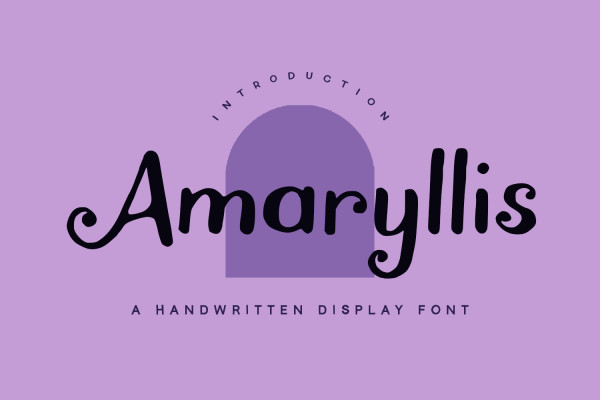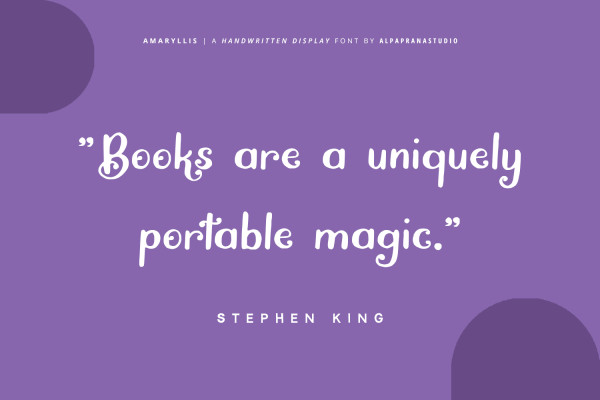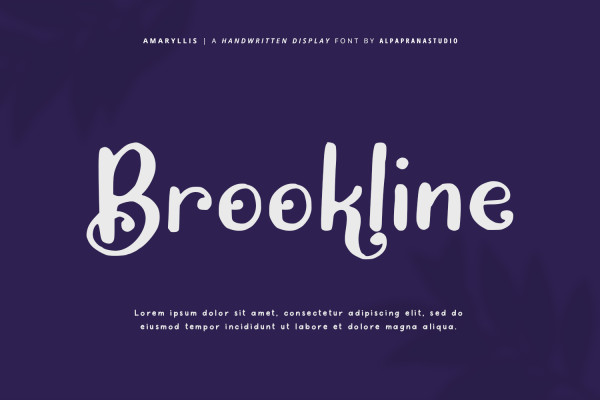
Amaryllis – Handwritten Font
Amaryllis – Handwritten Font is a handwritten font with modern feels. It will be perfectly used for Branding, Logo Design, Lettering, Logotype, Clothing, Poster, magazine, packaging, posters, shopping bags, t-shirts, book covers, photography, special events and other design project.